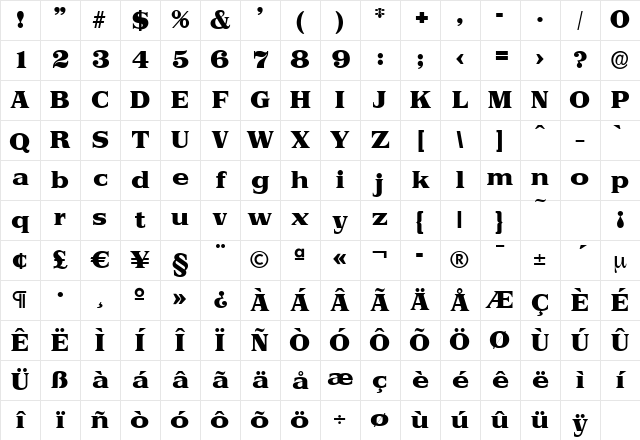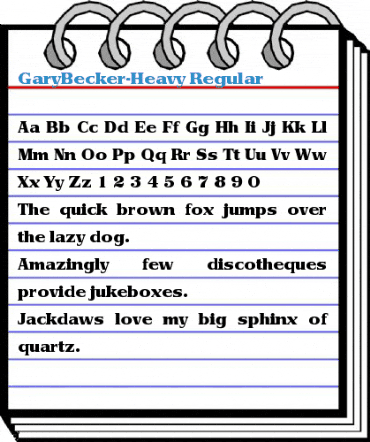
GaryBecker-Heavy Regular
Design Context for GaryBecker-Heavy
GaryBecker-Heavy is a composed and adaptable typeface that performs quietly and consistently across a wide range of design contexts.